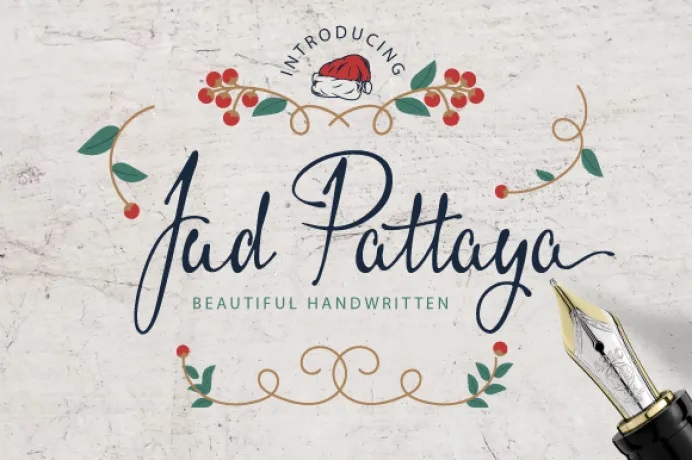
Jud Pattaya Font
Jud Pattaya features a beautiful handwritten font. Perfect for greeting cards at Christmas and New Year. PUA technology allows easy access to its glyphs and Swashes!
Jud Pattaya Handwritten Font